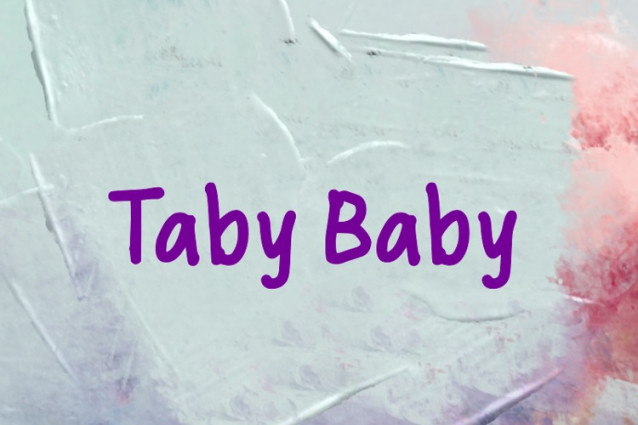
Taby Baby Font
Taby Baby Font a sweet and friendly handwritten font. Cute and fun, this font is ideal for writing wedding invitations, cards, or any other design that might need a fun touch!